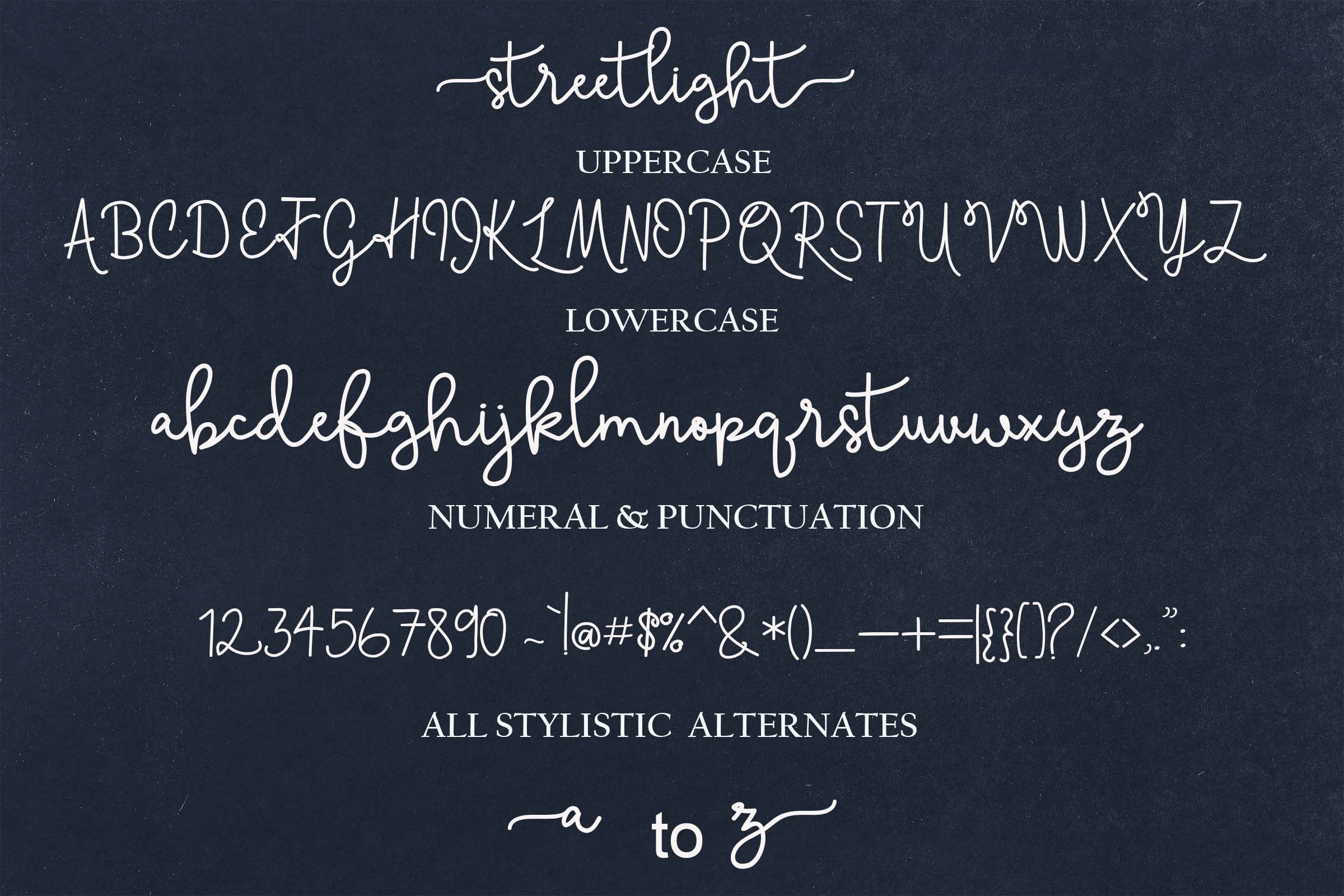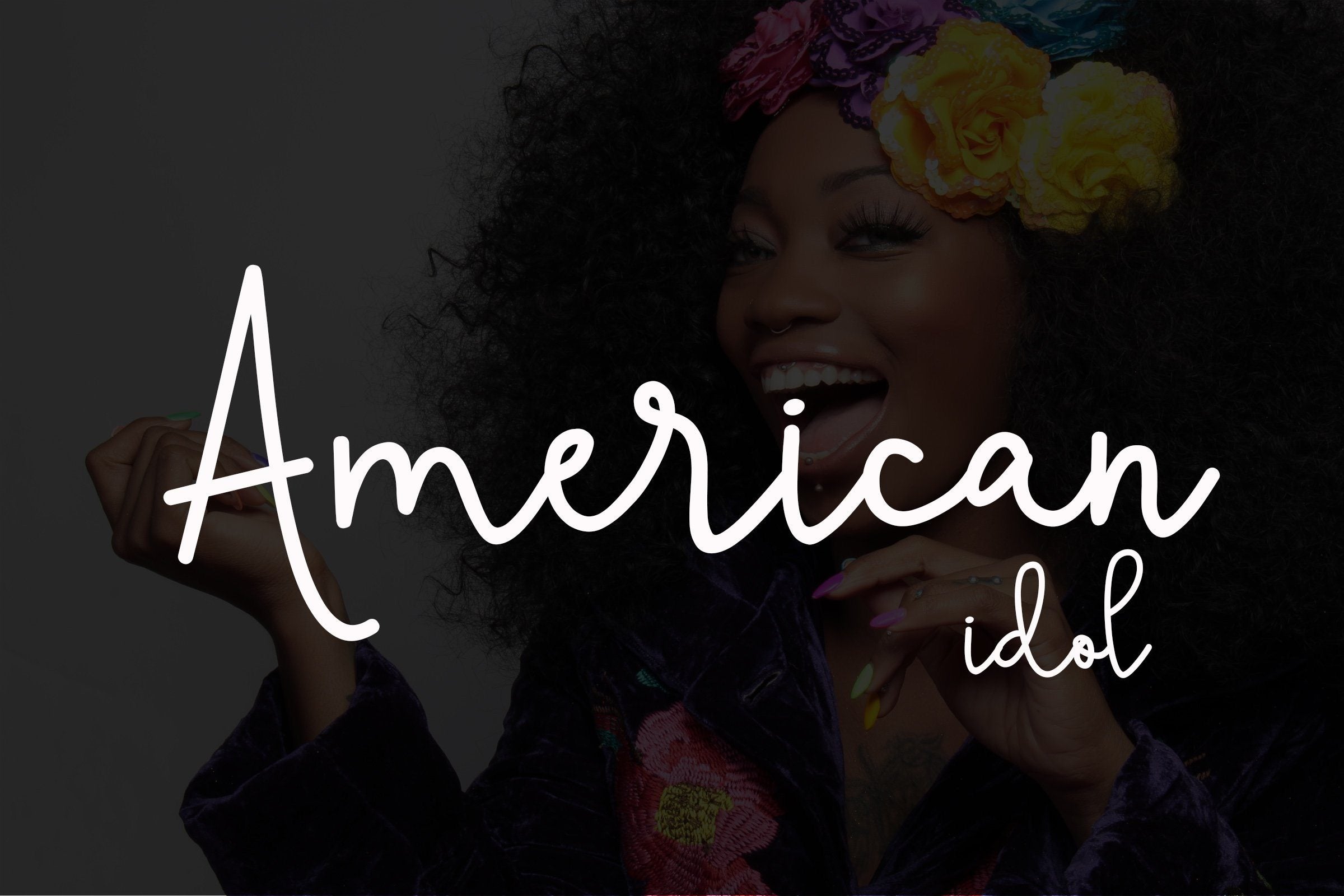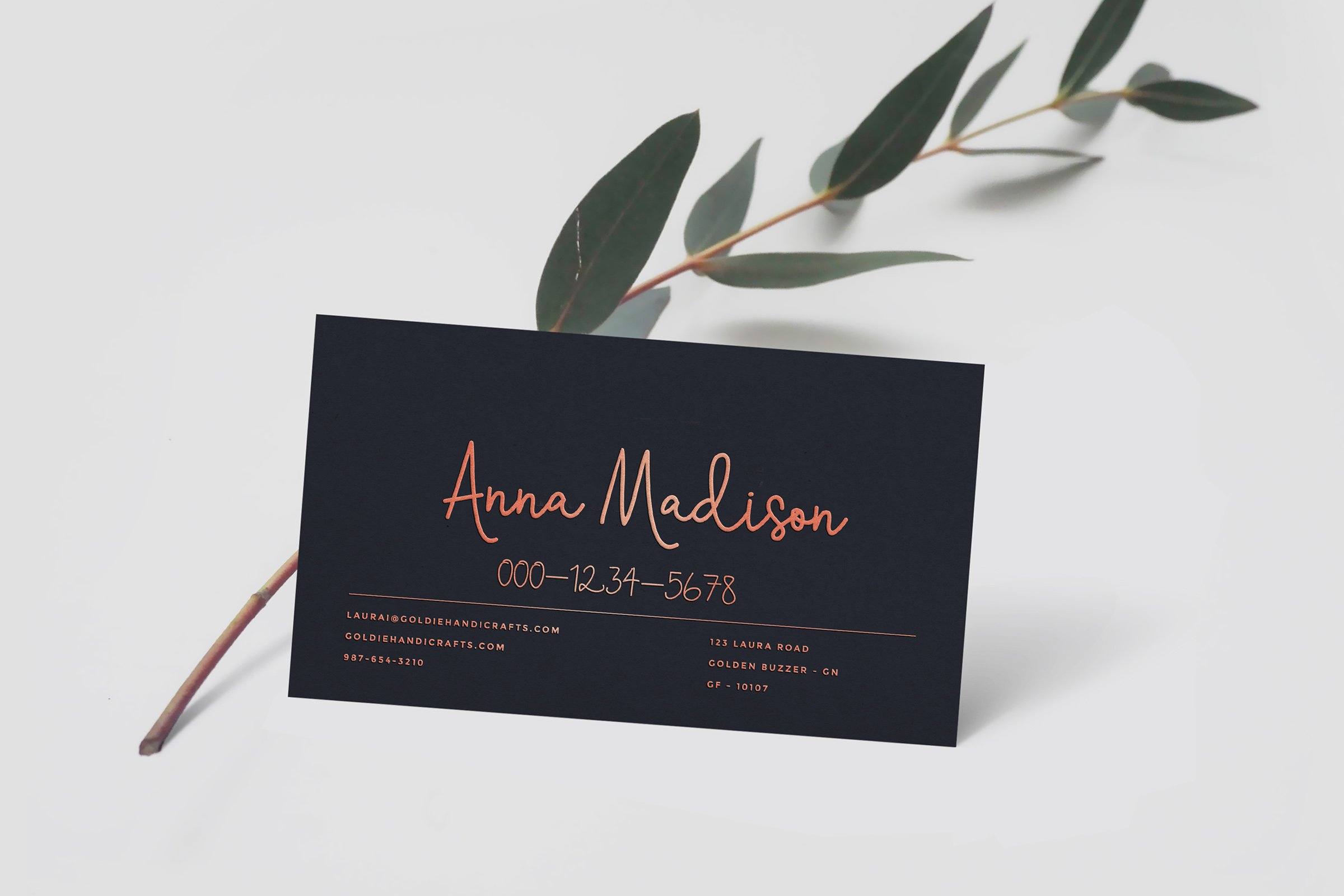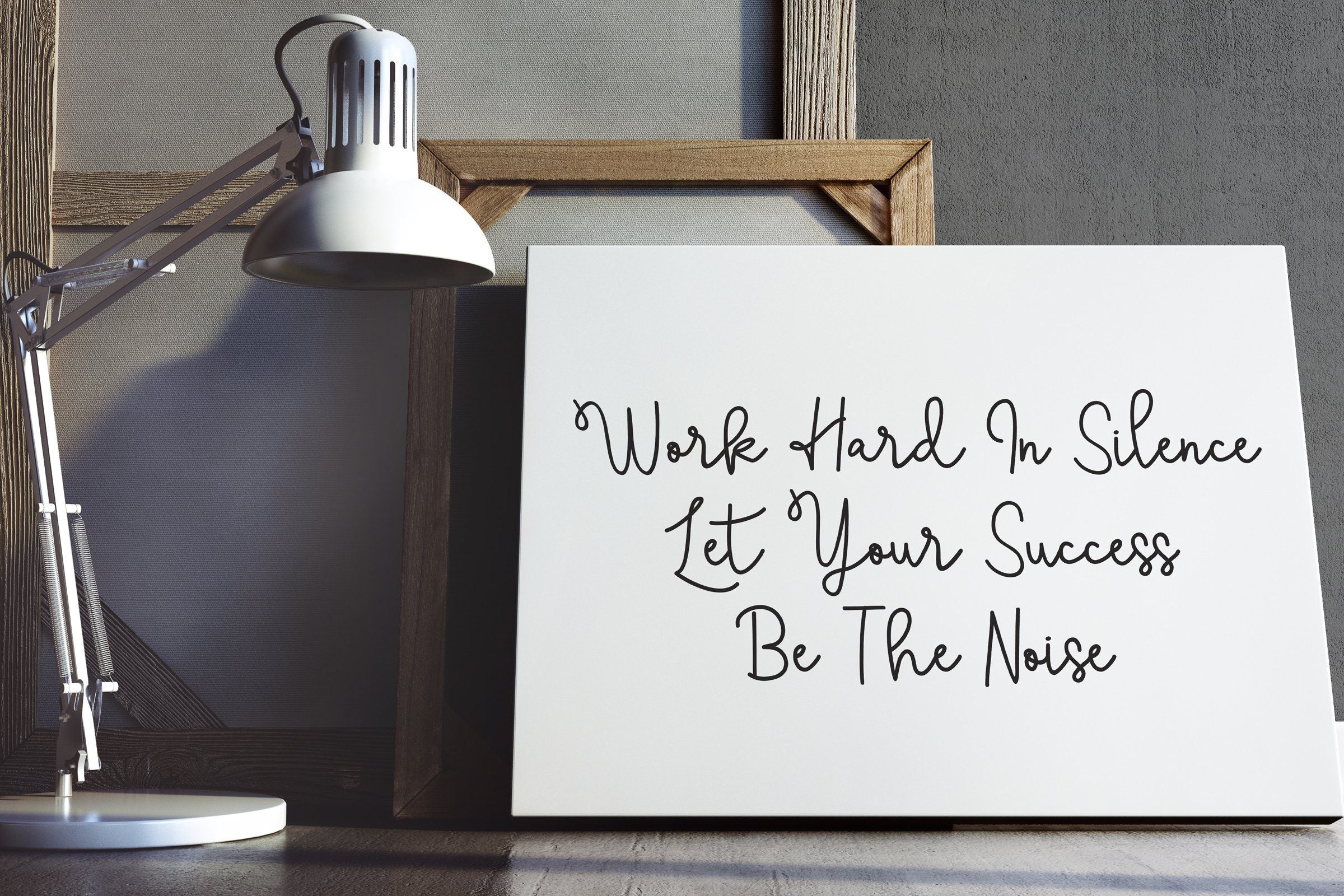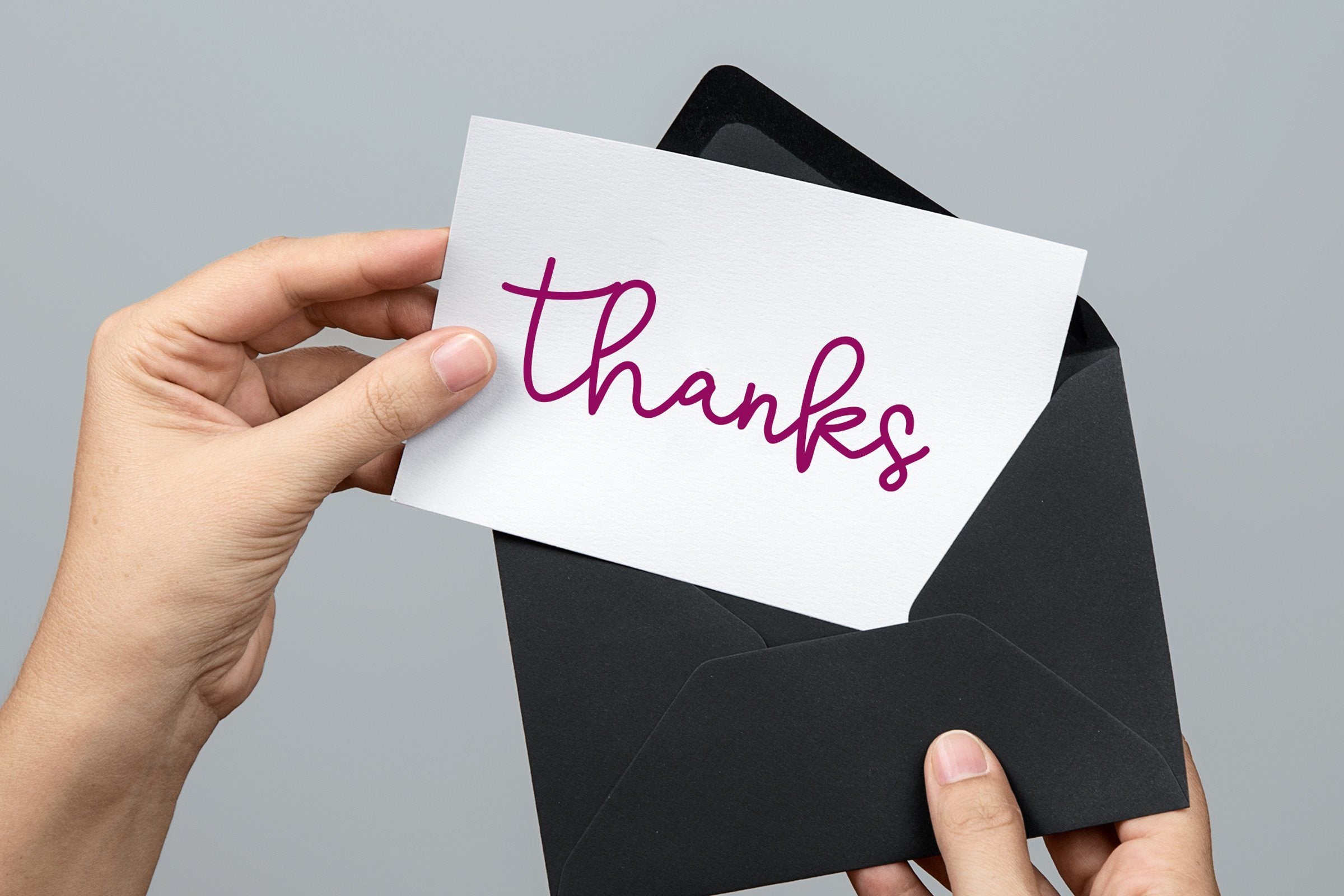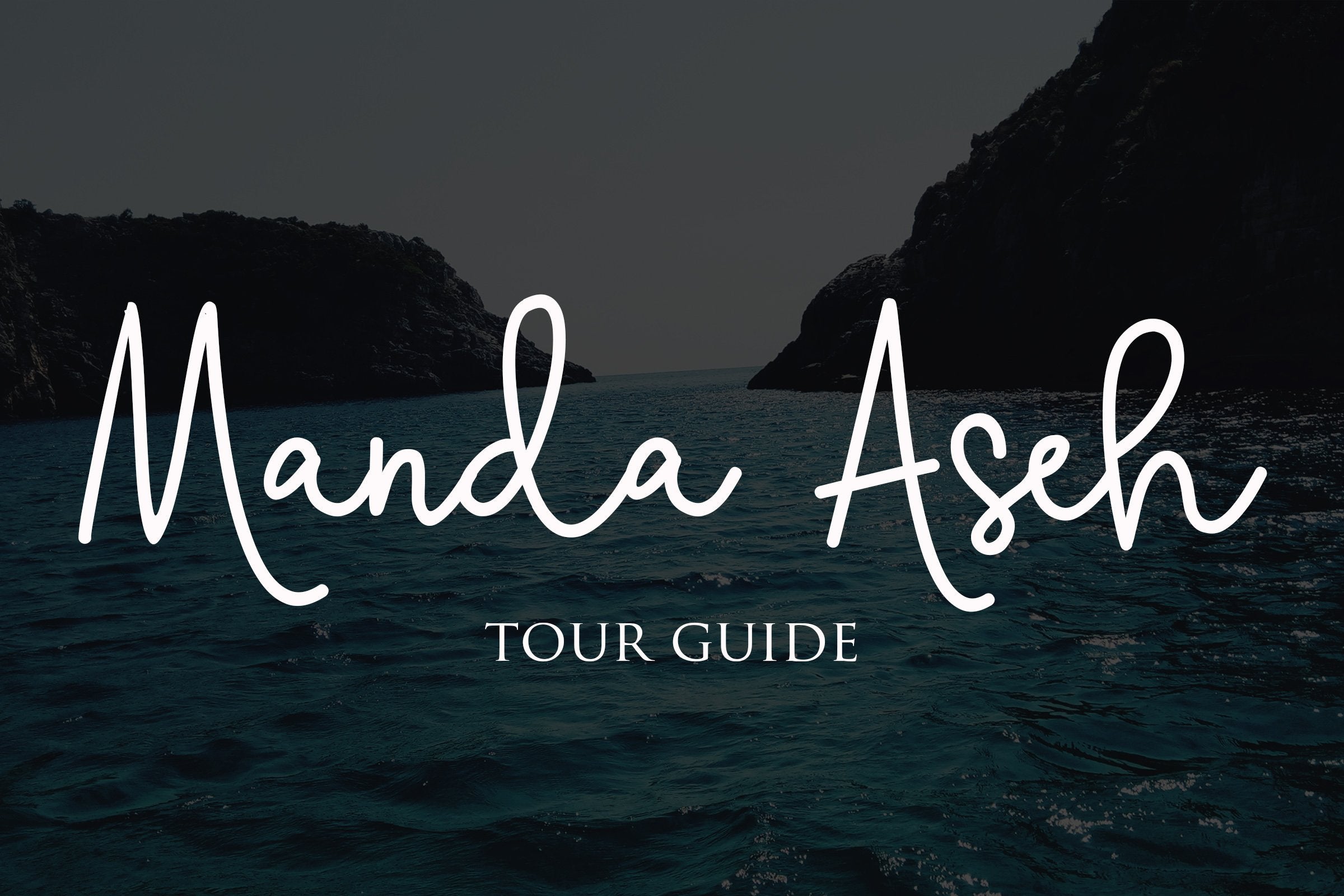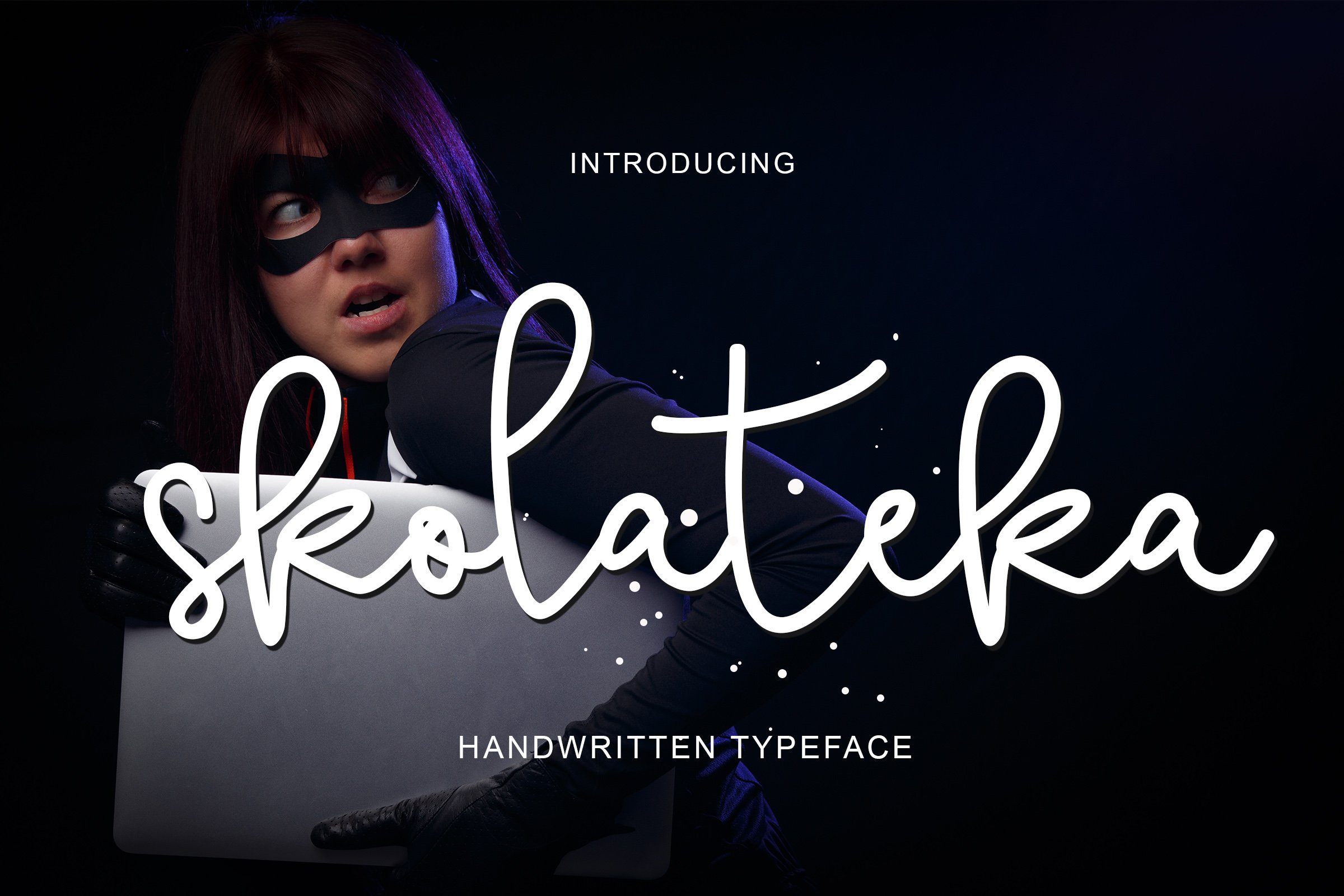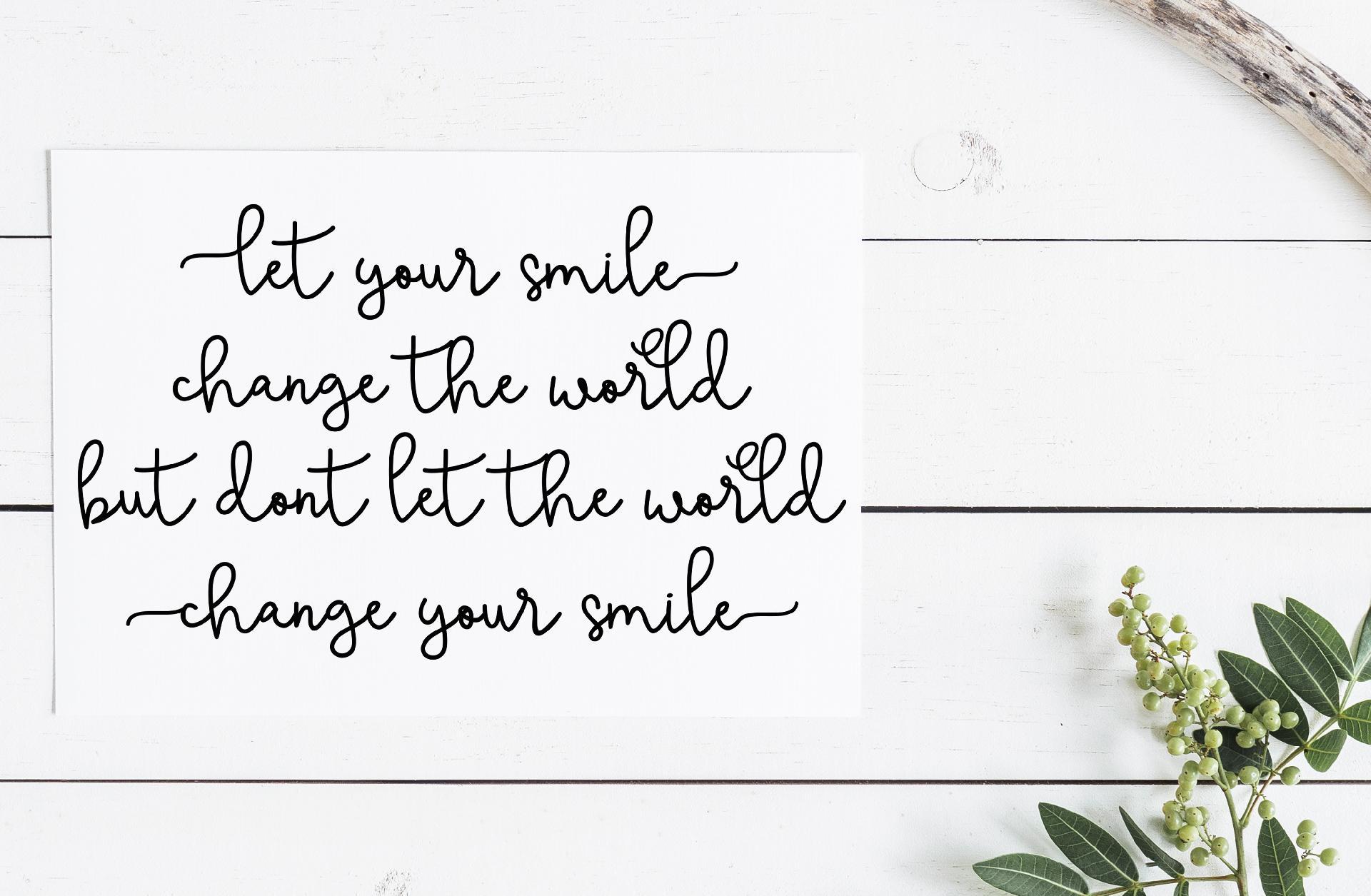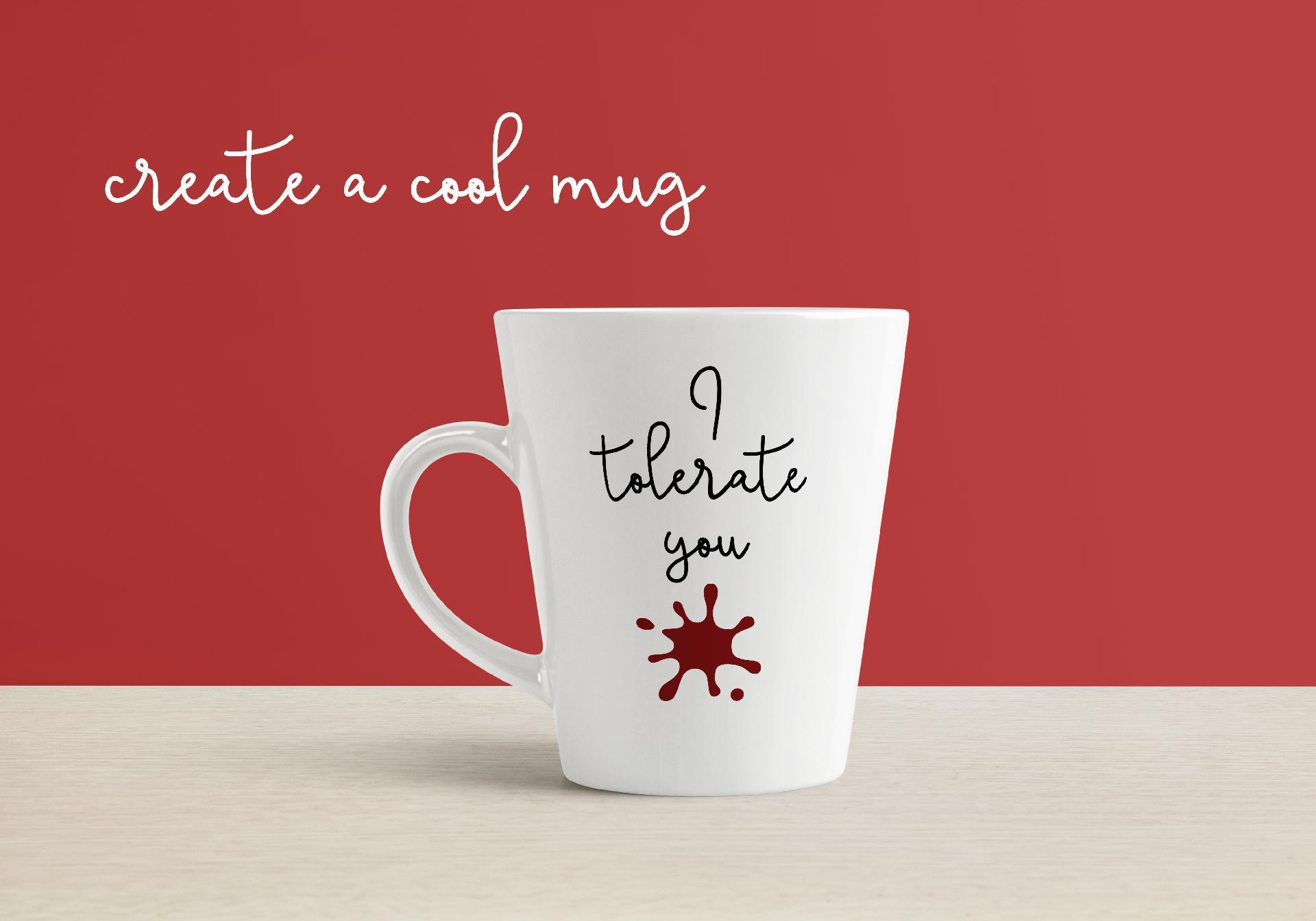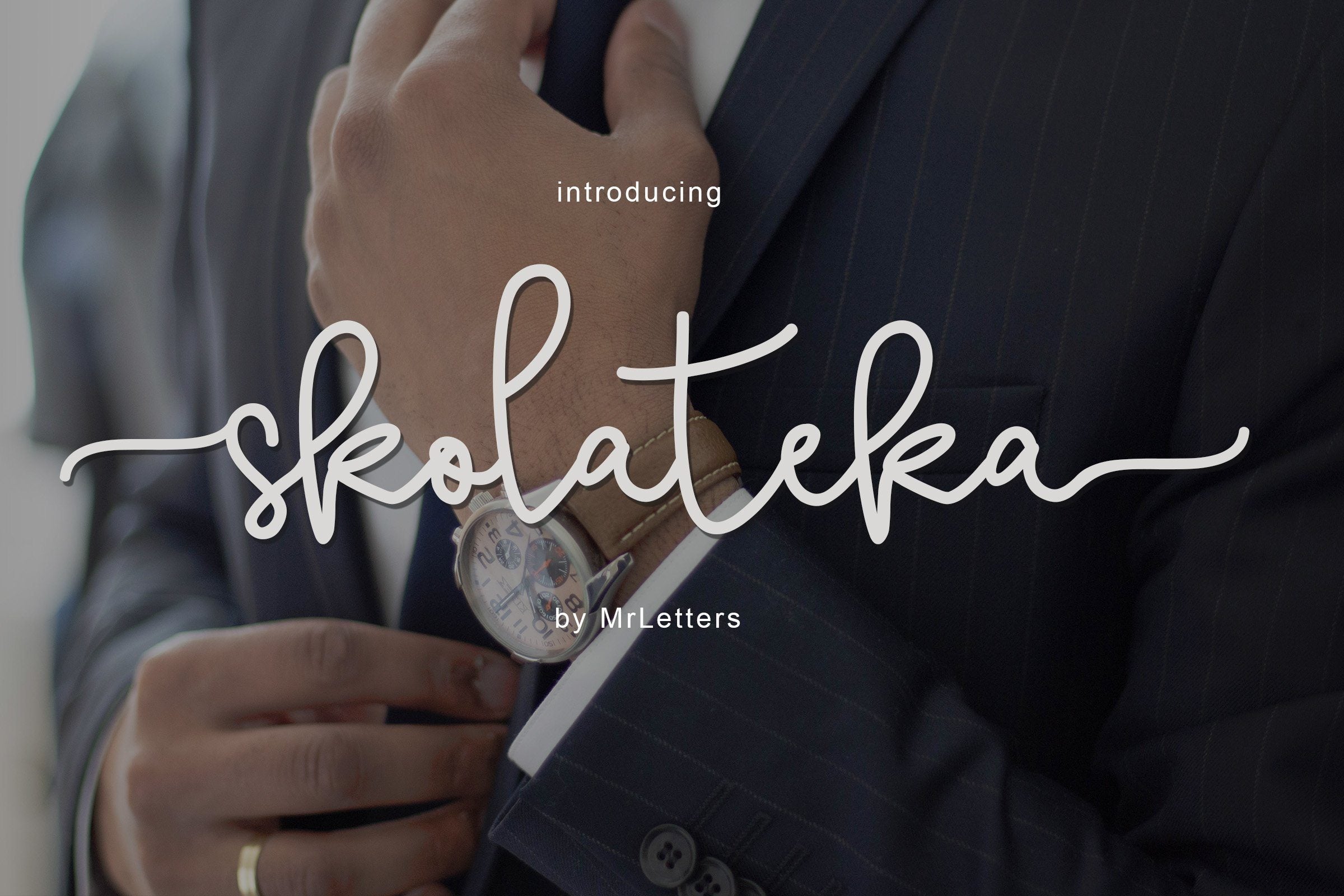
Skolateka Script
About Skolateka Script
Introducing Skolateka Script a new fresh & modern script with a handmade style, decorative characters and a dancing baseline! So beautiful on invitation like greeting cards, branding materials, business cards, quotes, posters, and more!! Skolateka Script come with 268 glyphs. The alternative characters were divided into several Open Type features such as Swash, Stylistic Sets, Stylistic Alternates, and Ligature. The Open Type features can be accessed by using Open Type savvy programs such as Adobe Illustrator, Adobe InDesign, Adobe Photoshop Corel Draw X version, And Microsoft Word. And this Font has given PUA unicode (specially coded fonts). so that all the alternate characters can easily be accessed in full by a craftsman or designer. The ZIP file are include : Skolateka Script.OTF Skolateka Script.TTF Skolateka Script Web Font (eot, svg, woff, woff2) If you don’t have a program that supports OpenType features such as Adobe Illustrator and CorelDraw X Versions, you can access all the alternate glyphs using Font Book (Mac) or Character Map (Windows). If you have any question, don’t hesitate to contact me by email  Thanks and happy designing 🙂 Thank You for purchase! Introducing Skolateka Script a new fresh & modern script with a handmade style, decorative characters and a dancing baseline! So beautiful on invitation like greeting cards, branding materials, business cards, quotes, posters, and more!! Skolateka Script come with 268 glyphs. The alternative characters were divided into several Open Type features such as Swash, Stylistic Sets, Stylistic Alternates, and Ligature. The Open Type features can be accessed by using Open Type savvy programs such as Adobe Illustrator, Adobe InDesign, Adobe Photoshop Corel Draw X version, And Microsoft Word. And this Font has given PUA unicode (specially coded fonts). so that all the alternate characters can easily be accessed in full by a craftsman or designer. The ZIP file are include : Skolateka Script.OTF Skolateka Script.TTF Skolateka Script Web Font (eot, svg, woff, woff2) If you don’t have a program that supports OpenType features such as Adobe Illustrator and CorelDraw X Versions, you can access all the alternate glyphs using Font Book (Mac) or Character Map (Windows). If you have any question, don’t hesitate to contact me by email  Thanks and happy designing 🙂 Thank You for purchase!